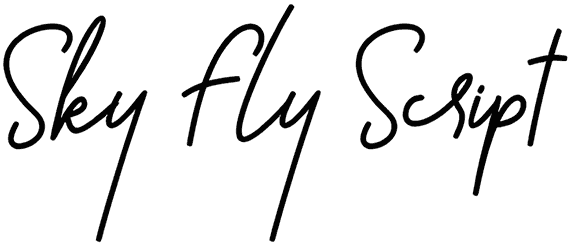
Sky Fly Script Font
Sometimes a graphic artist requires a magical script font, the same as Sky Fly Script, to take all of his creative ideas, like posters, book covers, gift cards, wedding invitations, or social media posts, out of the box.
This handwritten font comes with a cursive and rounded style, thus it can look perfectly fit for any kind of professional artwork. This masterpiece can bring a vibe of delicacy, vitality, drama, or momentum to all of your editorial projects.